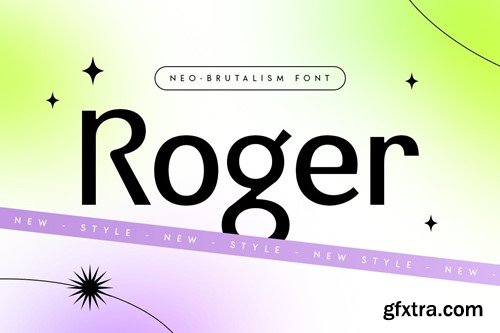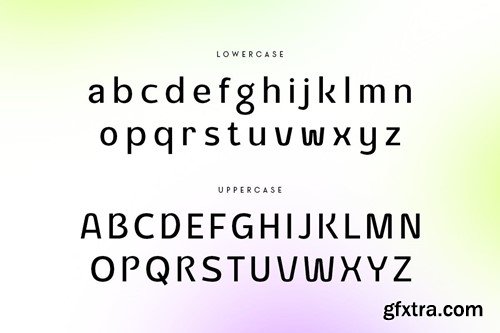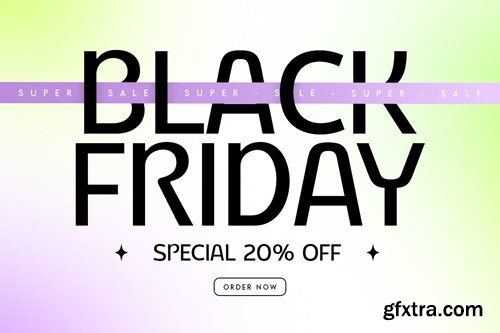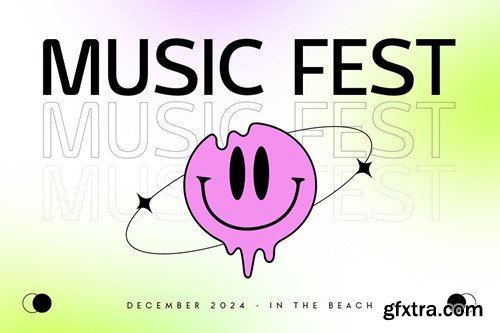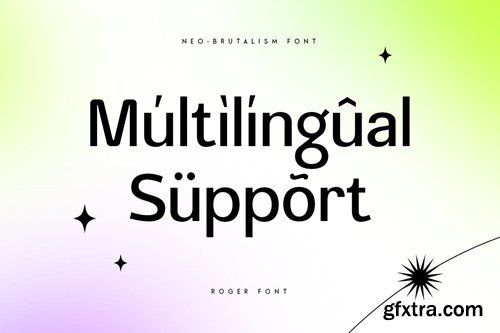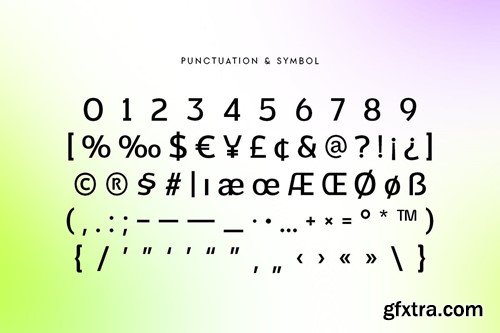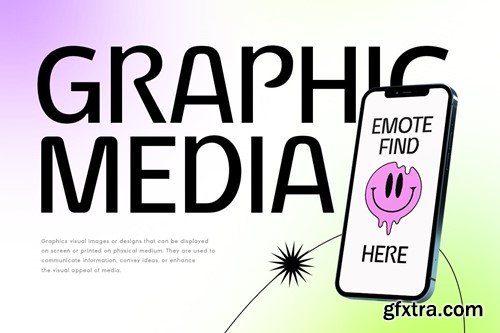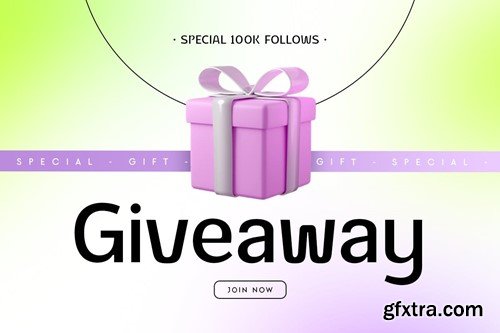
罗杰 - 新 Brutalist 字体 NW7QWDQ
Roger, Neo-Brutalism Font is a A Neo Brutalism Font with modern and stylish corporate type and inside have a minimalist, unique style and iconic sans serif, font that you can combine to get any variations and unique shapes easily just in seconds. It is a sans serif font with minimalist style that perfect for branding projects, logo, poster designs, social media posts, advertisements, product packaging, product designs, label, photography, watermark, invitation, stationery, and any projects, it makes with a high level of legibility. What's Included: Recommended using Adobe Illustrator or Adobe Photoshop. Wish you enjoy our font. :)